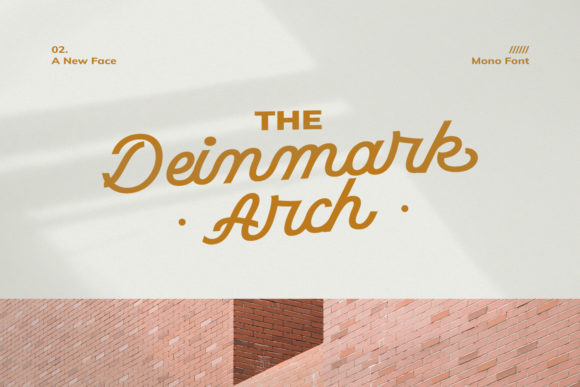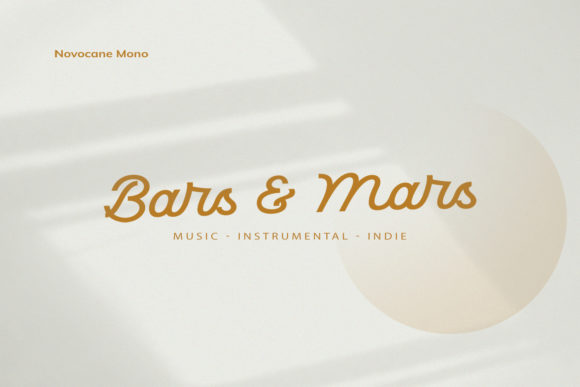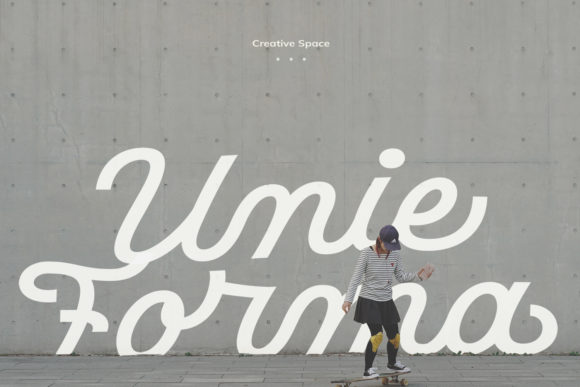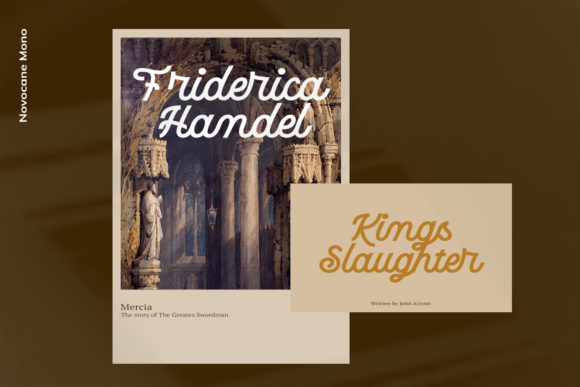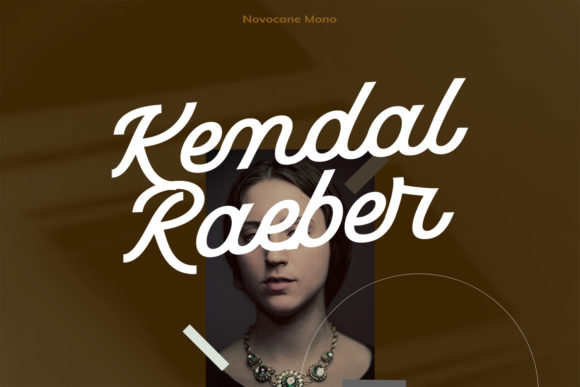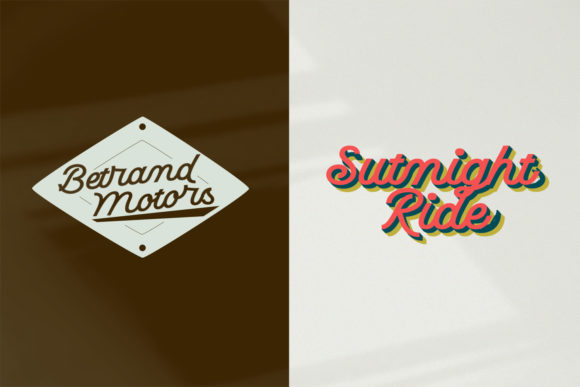
Introduction to Novocane Mono Font
Have you ever been working on a creative project, pouring your heart and soul into it, only to feel like something is missing? The perfect font can make all the difference. For designers, the right typography can elevate a design from ordinary to extraordinary. And that’s where the Novocane Mono Font comes in – a delicate, elegant, and flowing handwritten font that’s sure to bring your creative ideas to life.
With its beautiful and well-balanced characters, the Novocane Mono Font is a valuable resource for designers looking to add a touch of sophistication to their designs. Whether you’re working on a high-quality design project or just need a reliable font to fall back on, this font is a must-have in your collection. And the best part? It’s available for free download, making it an accessible design resource for designers of all levels.
Key Features of Novocane Mono Font
- High-quality design resource with a clean and minimalist aesthetic, ideal for creative projects.
- Features a transparent background, allowing for seamless integration with any design or background image.
- Includes a range of characters, including uppercase and lowercase letters, numbers, and punctuation marks, making it suitable for various design needs.
- Designed with a focus on clarity and readability, making it an excellent choice for body text in creative projects.
- Available in a single weight, with a fixed width and x-height, providing a consistent and professional look across all text elements.
Honest Review: Novocane Mono Font
As a designer, I’m always on the lookout for high-quality design resources that can elevate my creative projects. The Novocane Mono Font is one such resource that caught my attention. With its sleek, modern design and transparent background, it’s perfect for anyone looking to add a touch of sophistication to their work.
- ✨ Clean and minimalist design that’s perfect for creative projects
- ✨ High-quality typography that’s crisp and clear
- ✨ Transparent background makes it easy to layer over other design elements
- ⚠️ Limited character set, which may not be suitable for longer texts
- ⚠️ May not be as versatile as other fonts, which could limit its use in certain design projects
Overall, the Novocane Mono Font is a solid addition to any designer’s toolkit. While it may have some limitations, its clean design and high-quality typography make it a great choice for creative projects. And with a free download, it’s definitely worth checking out.
The Novocane Mono Font is ideal for use in creative projects that require a clean and modern aesthetic. It’s perfect for headings, titles, and body text in digital products, marketing materials, and websites.